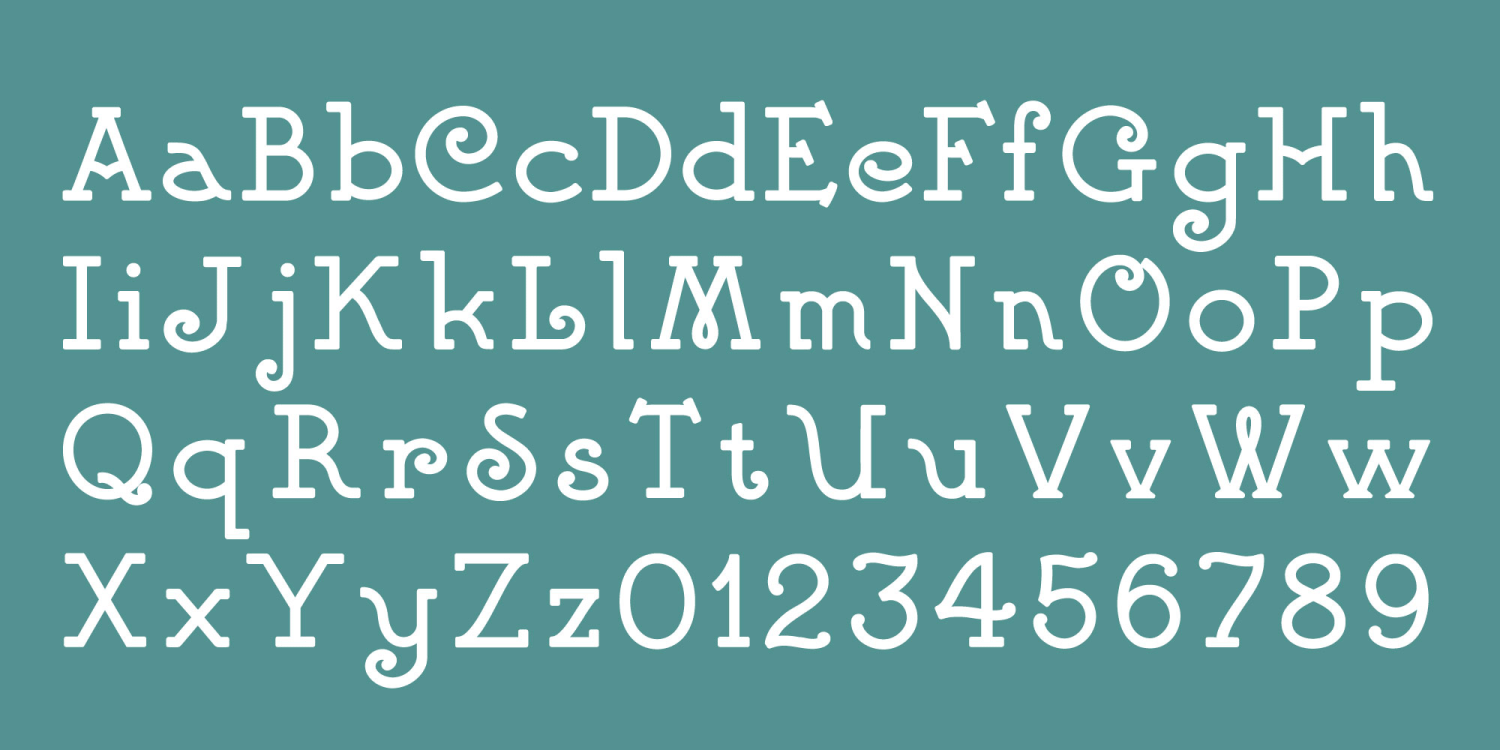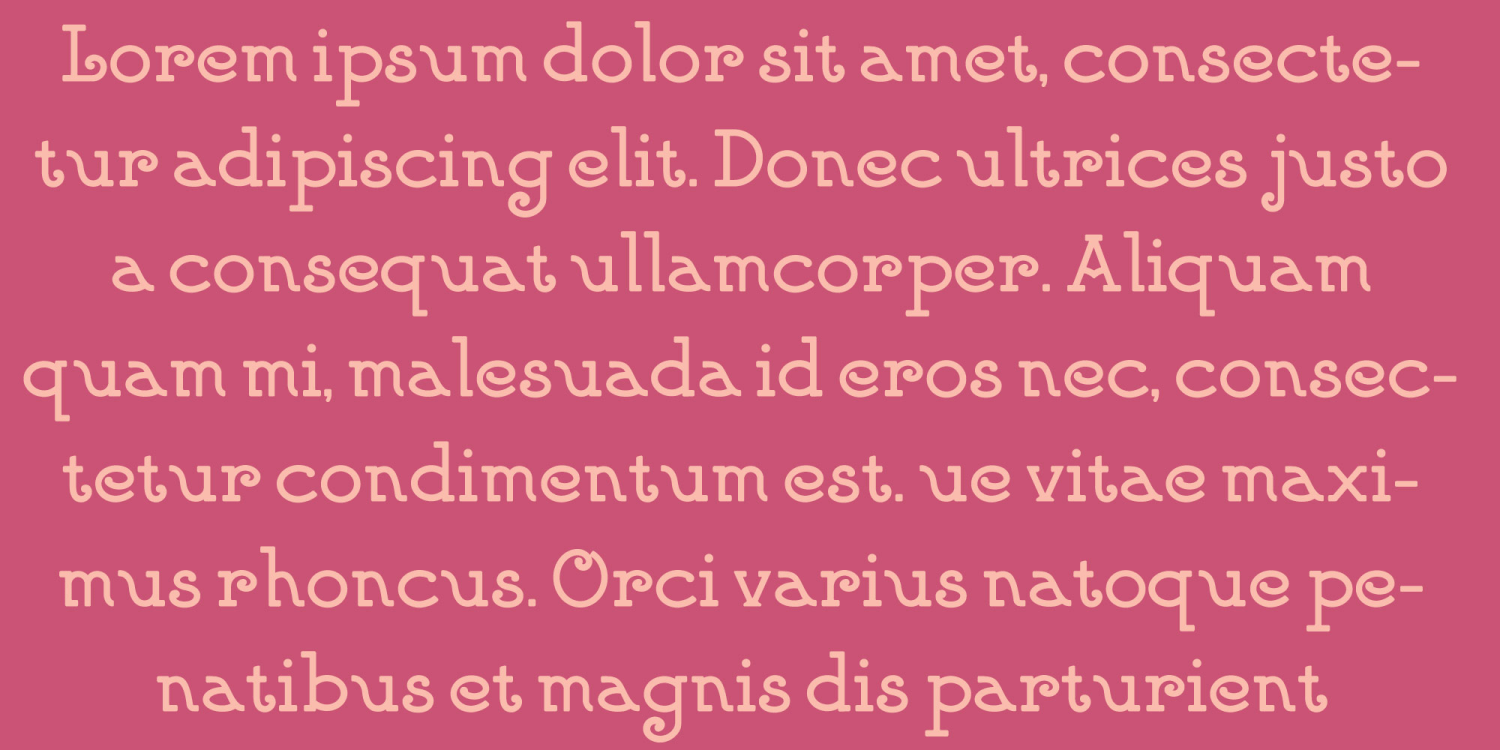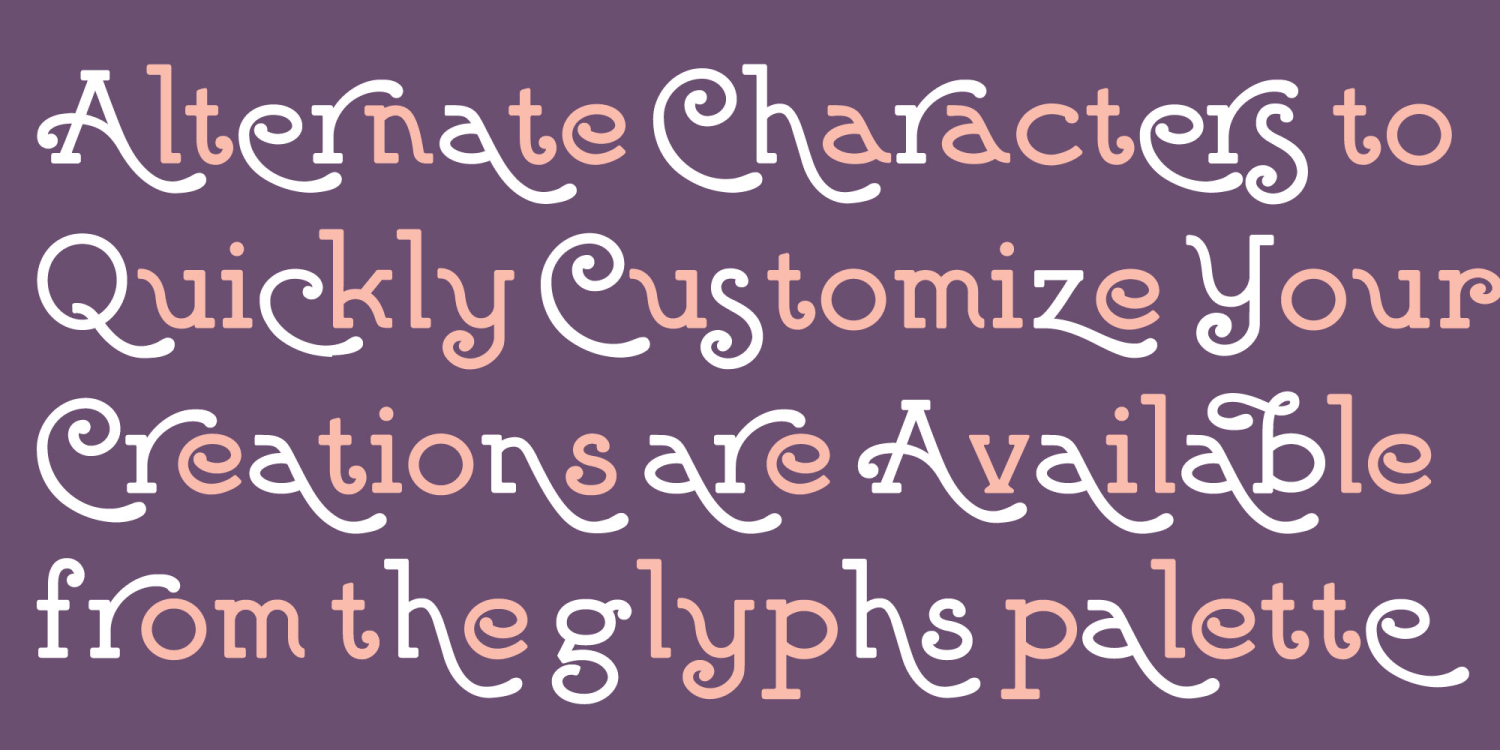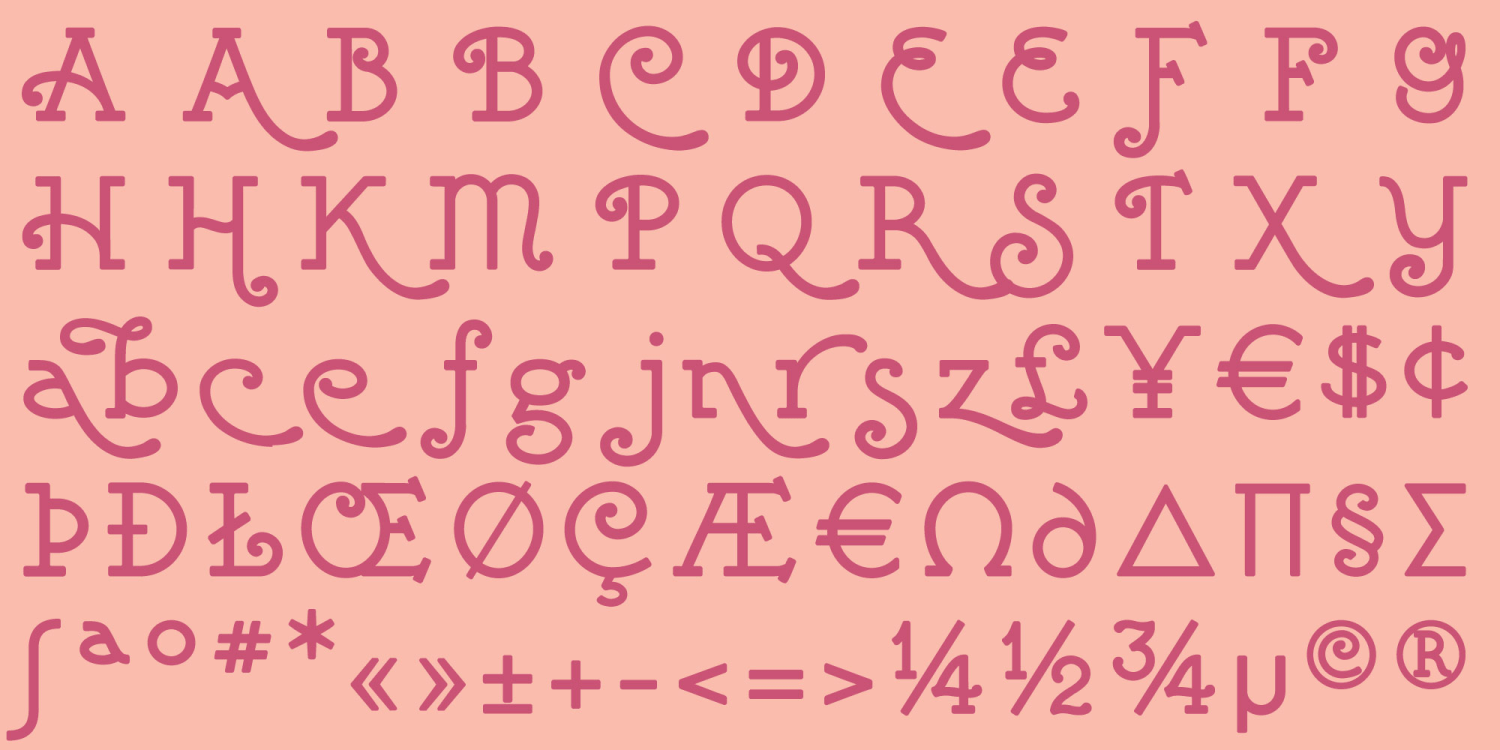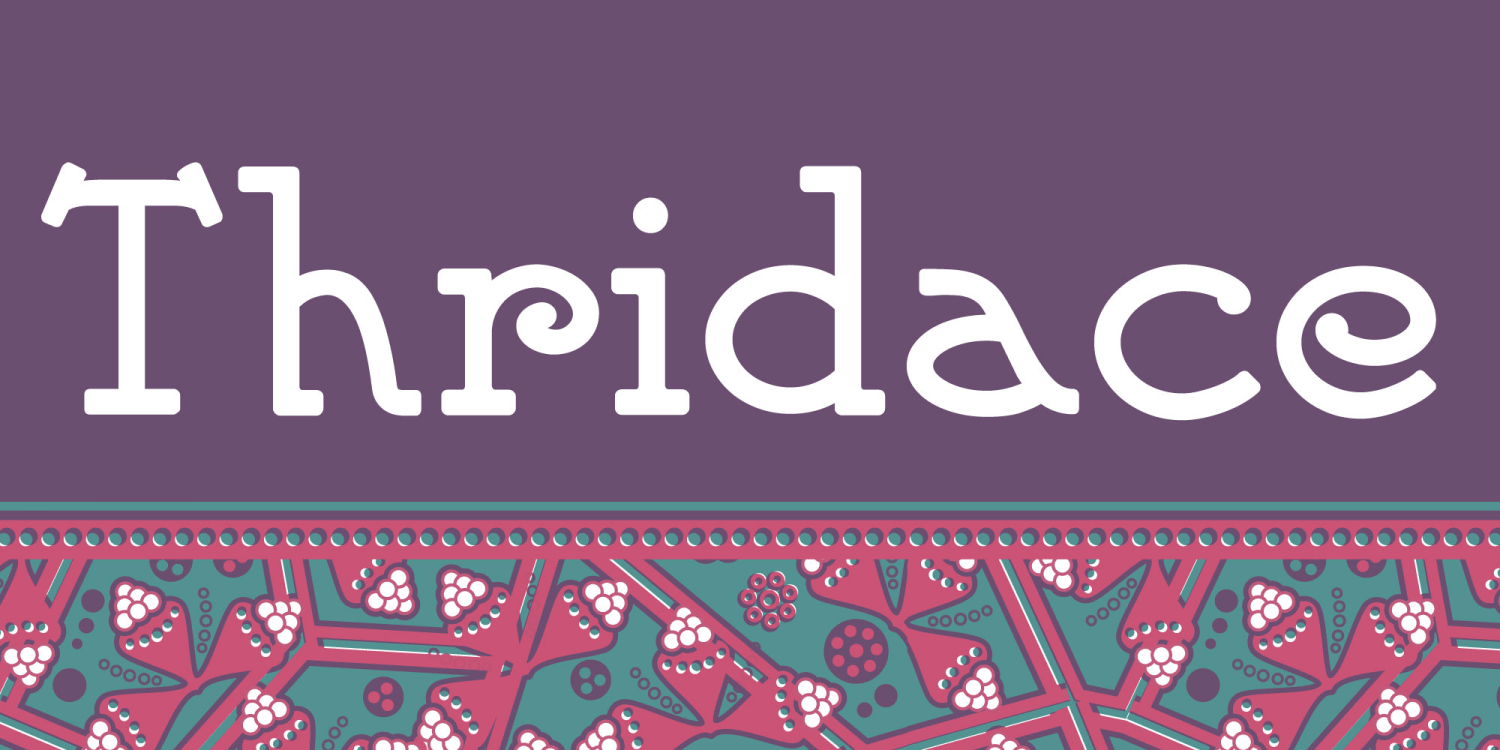
Thridace Regular
About Thridace Regular
Thridace is a lighthearted Art Nouveau font reborn from early twentieth century cosmetics packaging, that feature some alternate swash characters accessible from the glyphs palette to add a unique hand crafted  flavor to your designs.